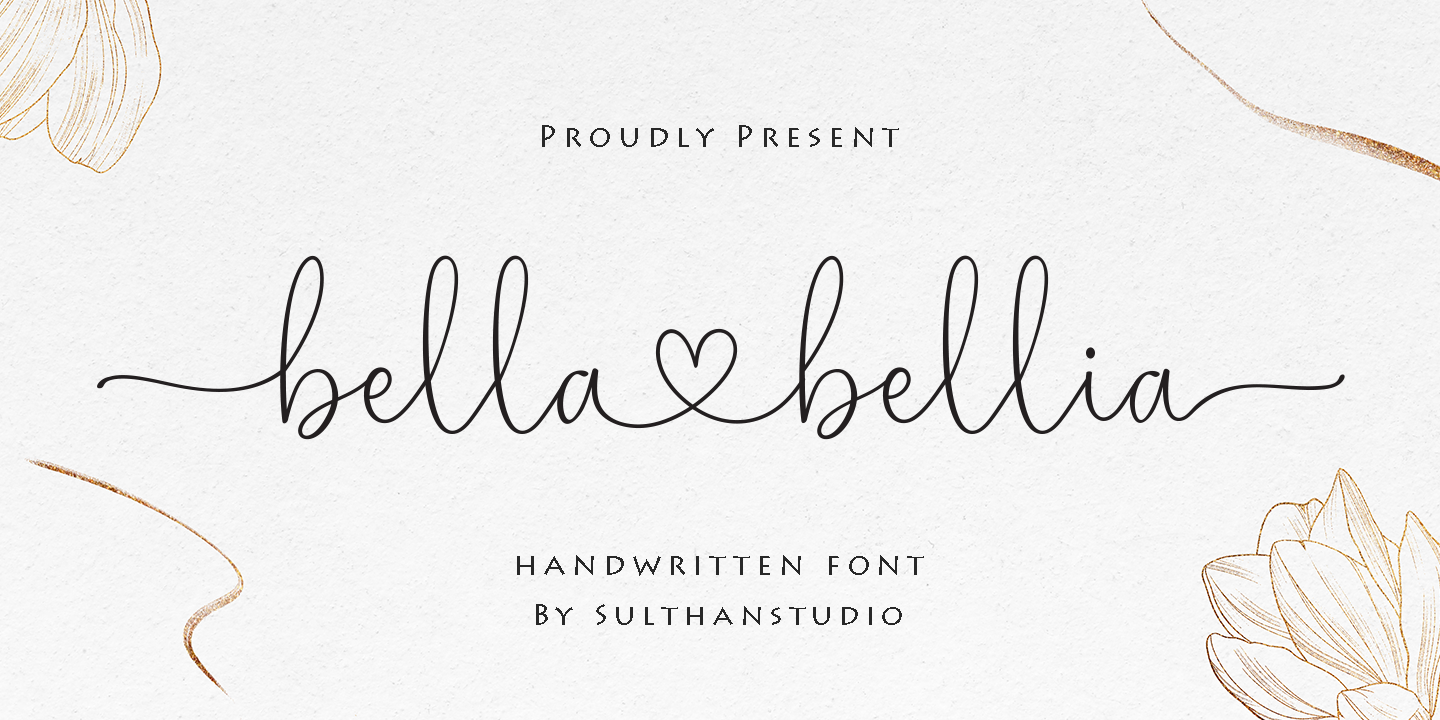
This enchanting typeface excels in various romantic applications including luxury wedding suites, Italian restaurant branding, beauty salon identities, feminine fashion labels, romantic novel covers, boutique hotel marketing, artisanal perfume packaging, and elegant lifestyle blogs. The Bella Bellia Font embodies timeless Italian beauty with its gracefully flowing letterforms that dance with Mediterranean charm and sophisticated femininity.
What makes this font truly exciting is its captivating blend of classical Italian elegance and contemporary romantic sensibility, creating letters that whisper sweet romance with every curve. The beautifully crafted characters feature delicate swashes, elegant ligatures, and harmonious proportions that make every word feel like a love letter written under Tuscan moonlight. Its distinctive personality combines old-world romance with modern sophistication, creating typography that makes hearts flutter with bella vita dreams.
The Bella Bellia Font family includes romantically inspired variations: Light, Regular, Medium, Bold styles, plus extensive alternates, swashes, and decorative flourishes. Each family member preserves the signature Italian elegance while offering versatility for creating designs that range from subtly romantic to lavishly ornate.